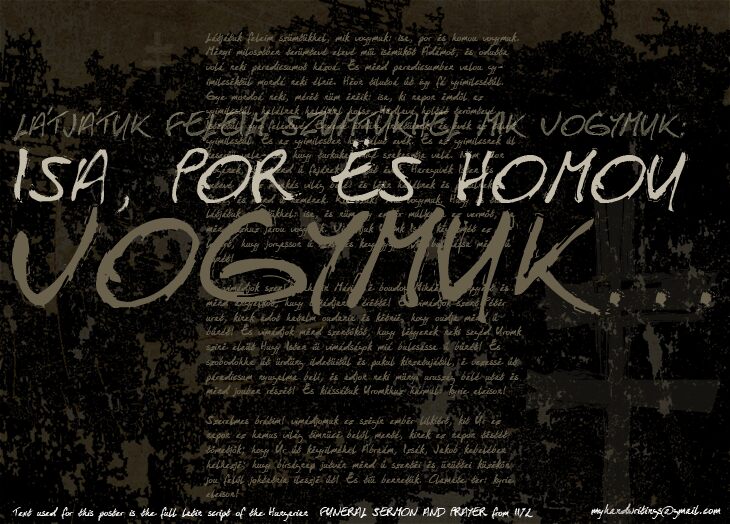
Isa Por Es Homou by Roland Huse is a free brush script with a raw, fast-moving edge. Broad swipes narrow suddenly into sharp joins and trailing flicks, with dry gaps and ragged edges breaking up the darker strokes. The letters feel improvised, direct, and unpolished.
Its restless rock-poster character makes it especially apt for album artwork and concert promotion. Fashion graphics and youth-focused branding can use the same forceful marks to suggest speed, rebellion, and physical paint. On event merchandise and skate packaging, the lettering can become part of the illustration, almost like a painted signature across the product surface.
ISA POR ES HOMOU is named after The Funeral Sermon and Prayer, the oldest known surviving contiguous Hungarian text. It was written by one scribal hand in the Latin script and dates to 1192–1195. It is found on f. 154a of the Codex Pray.